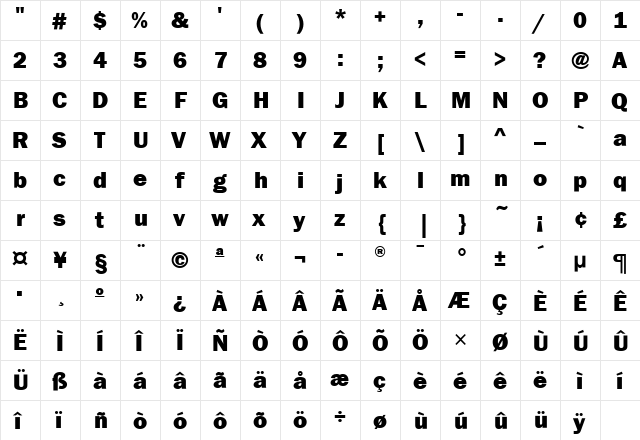
FranklinGotMdITC Heavy Font Preview
FranklinGotMdITC Heavy
FranklinGotMdITC Heavy Font Details
| Style | Heavy |
Design Context for FranklinGotMdITC Typeface
FranklinGotMdITC is a composed and adaptable typeface that performs quietly and consistently across a wide range of design contexts.